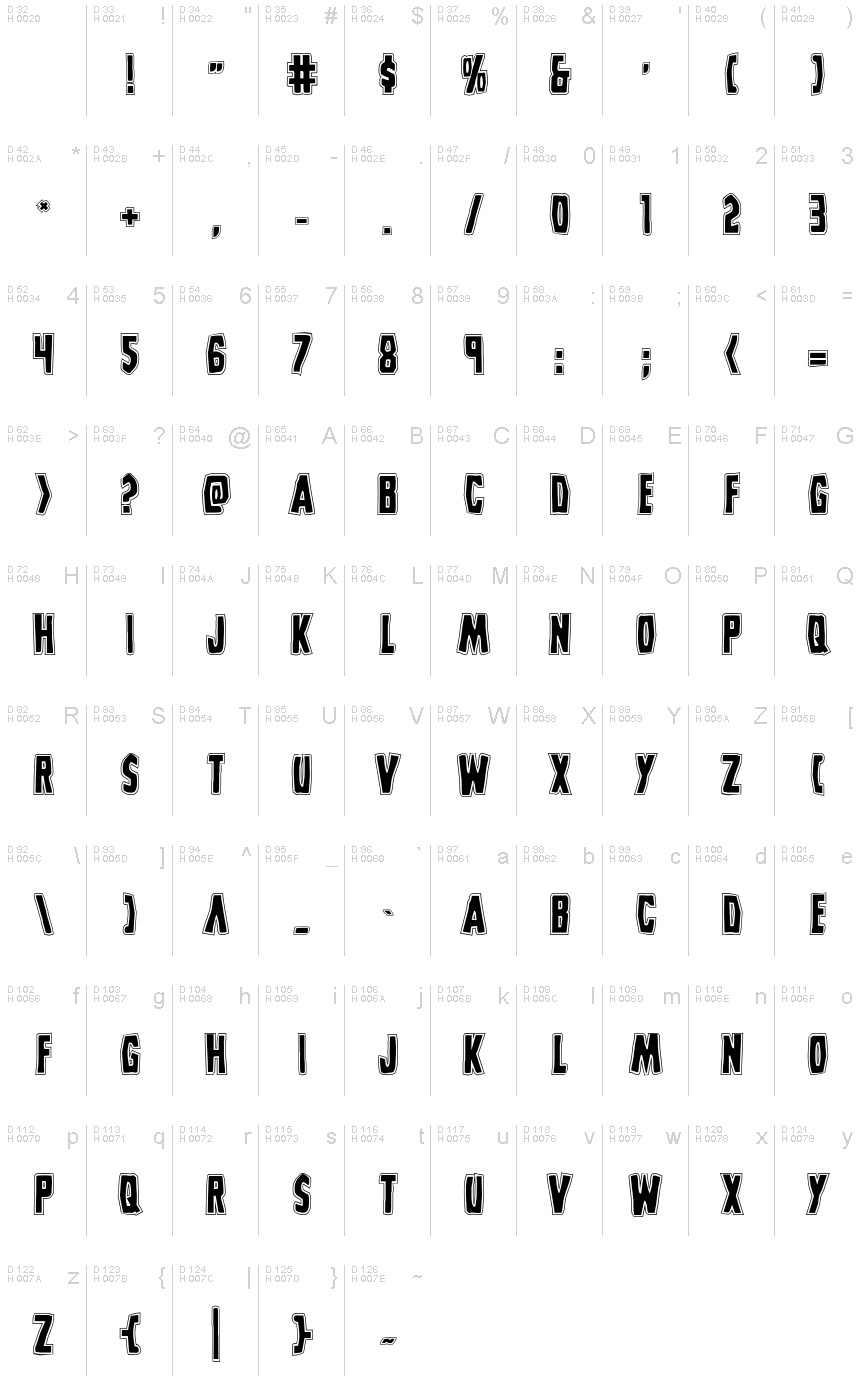
Grim Ghost College font is designed by Iconian Fonts. Grim Ghost is an old-school, pulp horror font. This condensed display font has a bold uppercase outline style and a blocky appearance with slightly uneven edges, giving it a comic-like feel. Its high contrast and dynamic mood add to its scary style, drawing inspiration from retro horror themes. The font also features a full character set including the Euro.
Use Grim Ghost College for various purposes: spine-tingling posters that exude eerie charm, setting the perfect tone for Halloween events; eye-catching headlines in blogs and websites that cater to fans of horror; chilling quotes in social media graphics; captivating covers for mystery novels and ghost stories; logos that seek to evoke fear or thrill audiences; film posters of the horror genre needing bold presence; and promotional materials for haunted attractions or themed parties during spooky festivities.